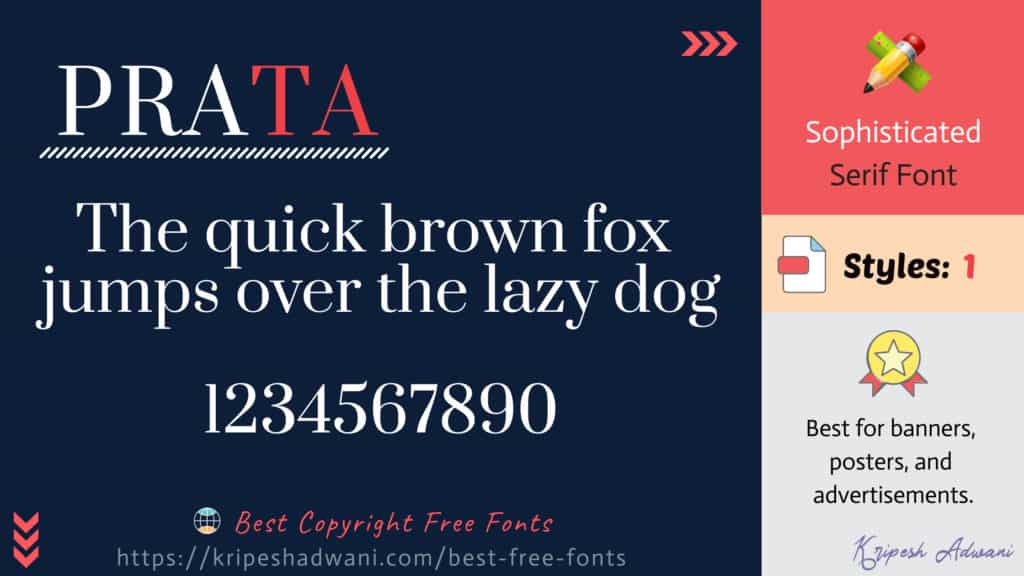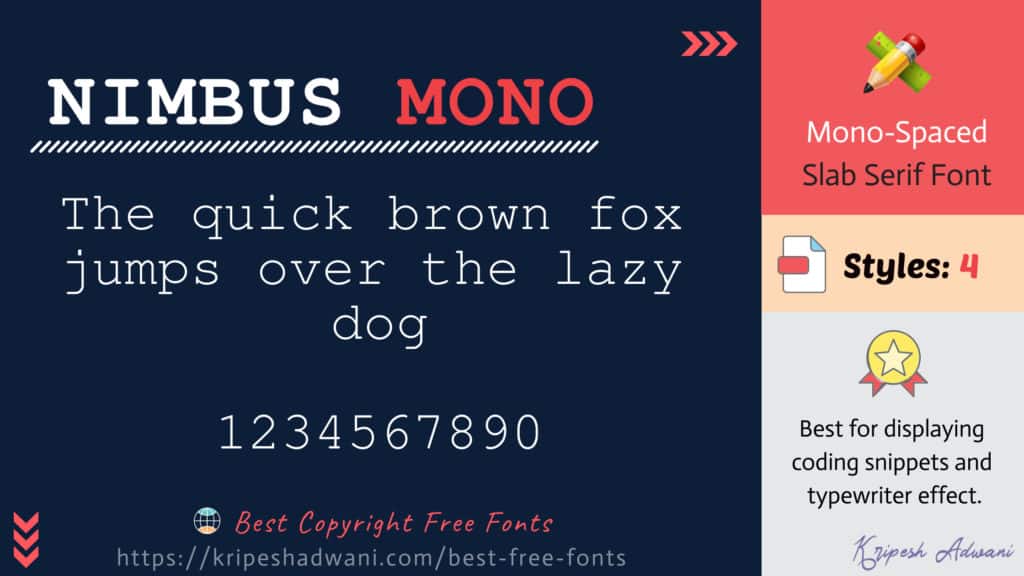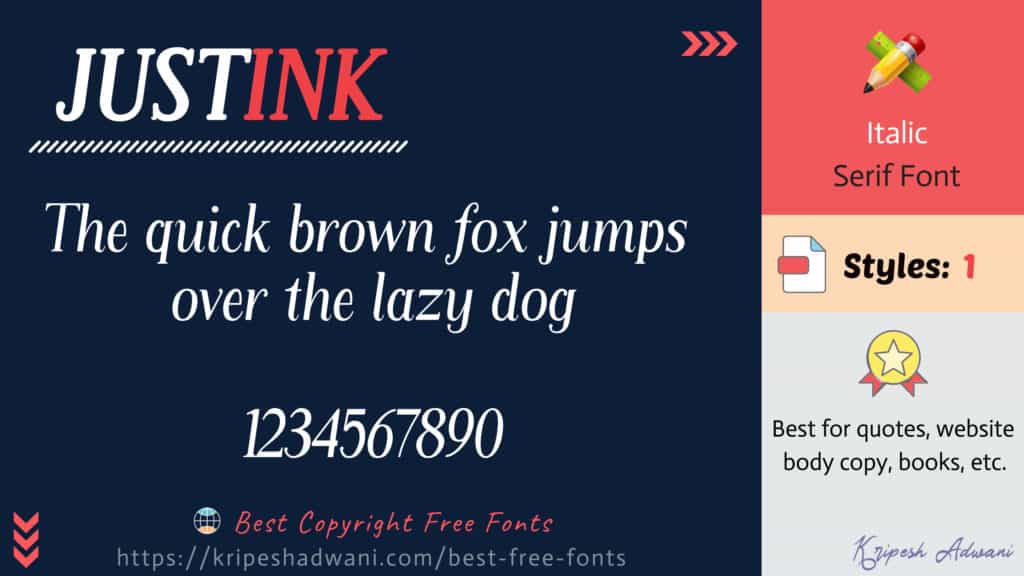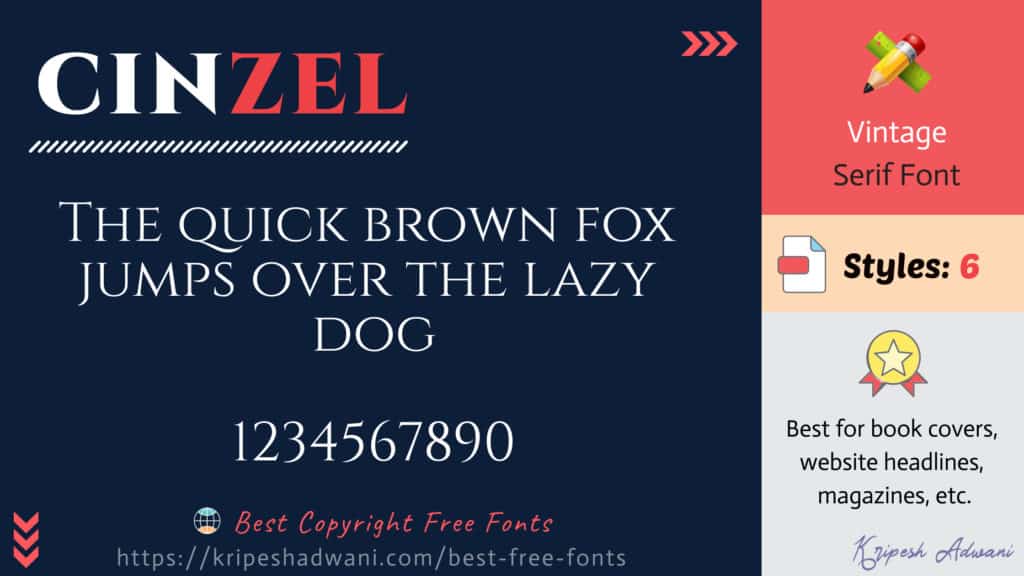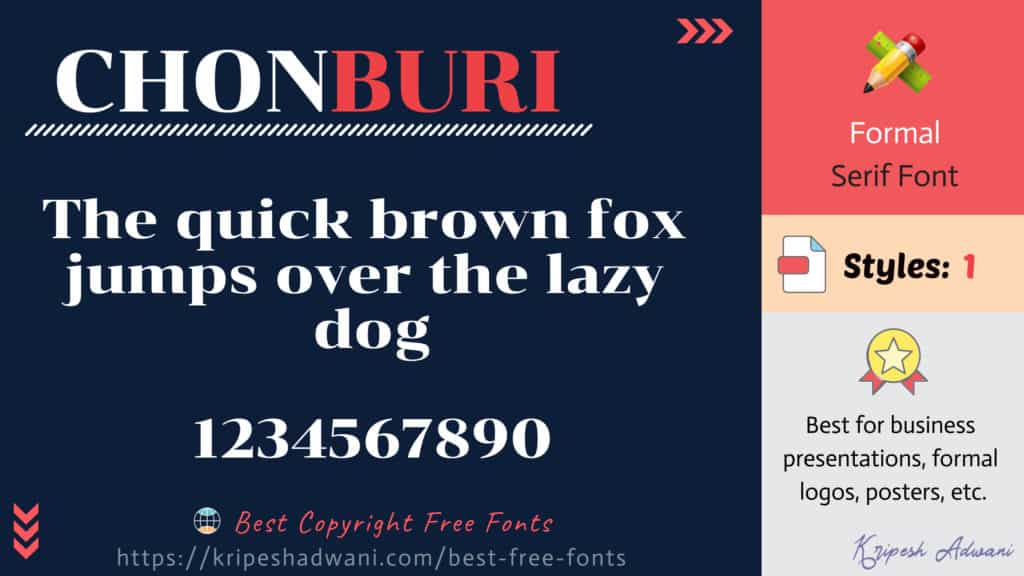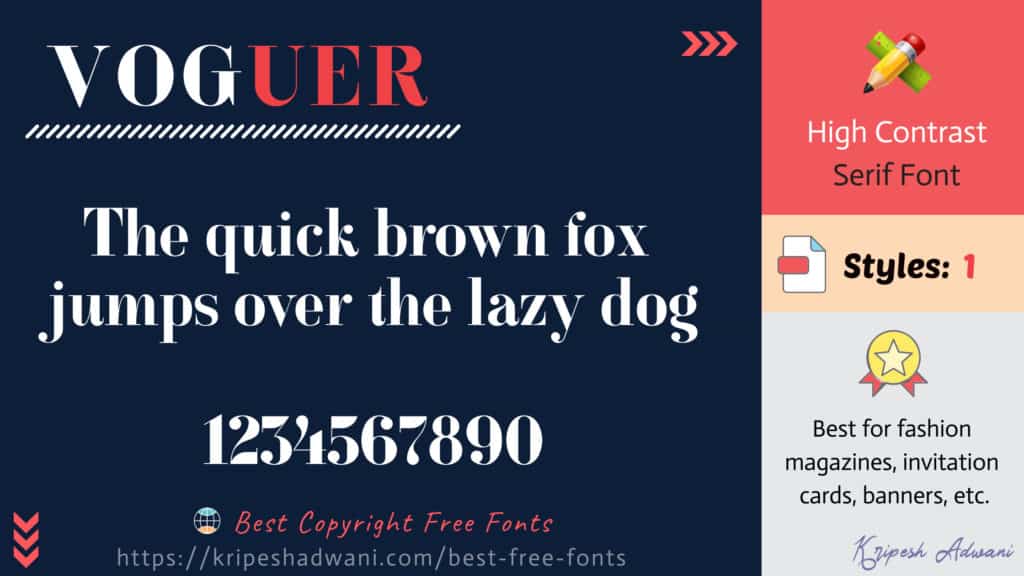
Designs are incomplete without fonts. Every font that you see has a different personality. Where one font might exude elegance and sophistication, another might appear to be confident, bold, or playful!
If you are working on a design project, it is essential to find a font that goes with the vibe of your project. You can find some great fonts online but they are not free for commercial usage and have copyright restrictions.
After researching thousands of online fonts, I’ve found some great Free Fonts which can be used commercially in 2026. In this article, I’m going to reveal 57 Best Free Fonts for Commercial Use. Yes, these fonts are FREE!!!
These fonts can be used on your brand logos, social media posts, school and college projects, blogs, websites, marketing materials, and even on client projects!
With this article, I will help you identify the difference between a font and a typeface and also highlight some important points you should consider before choosing a font.
Finally, we will check out the four significant font categories and the best free fonts under each. So, let’s dive right in!
Points to Consider Before Choosing a Font
Whether you are working on a client project or designing something for yourself, it is important to reflect on the following questions before choosing a font.
What is your project category?
The type of design project you are working on will decide the vibe you want the font to create.
- Is it a wedding or birthday invitation? Calligraphic fonts would be perfect for the occasion.
- For newspaper or magazine articles, Serif font works really well.
- If you need fonts for your app or website copy, Sans Serif would work like magic!
Who is your target audience?
Your target audience also plays a major role in finalizing your font.
For example, when designing the cover for a children’s book, you need fonts with a childish, playful, and carefree vibe.
Whereas for a sports brand commercial, you need fonts that give out a bold and confident vibe!
What is the theme?
The theme of your project will also be helpful in deciding the font you can use. For example, using spooky fonts on Valentine’s cards might be a terrible idea, right?
To identify the theme of your project, you need to get familiar with it and understand it on a deeper level.
Some examples of themes might be – Love, Luxury, Playful, Professional, Mysterious, Horror, etc.
Font vs Typeface
Typeface refers to a collection of similar types of fonts, whereas a font essentially refers to a single weight and style of text.
So, simply speaking, a collection of similar fonts is called a typeface. It can also be called Font Family. For example, Georgia is a typeface, whereas Georgia Bold, Georgia Italic, etc are fonts belonging to it.
Font Categories and Best Free Fonts for Commercial Use
Though fonts have lots of classifications, they can be broadly classified into four major types – Serif Fonts, Sans Serif Fonts, Script Fonts, and Display Fonts.
Now let us discuss each of them in depth.
Serif Fonts
Serifs are the oldest type of fonts that first occurred in the 15th century. These fonts had tiny feet-like decorative elements on the top and bottom called ‘Serifs’. Some examples of Serif fonts are Times New Roman, EB Garamond, Baskerville, etc.
Serif fonts are generally considered being sophisticated, formal, and professional. They are mainly used in printed media, including newspapers, magazines, etc.
Popular brands like Zara, Time, Vogue, Gucci, Faber Castell, Wikipedia, etc, use Serif fonts in their logos.
Free Serif Fonts for Commercial Use
1. Cobaissi
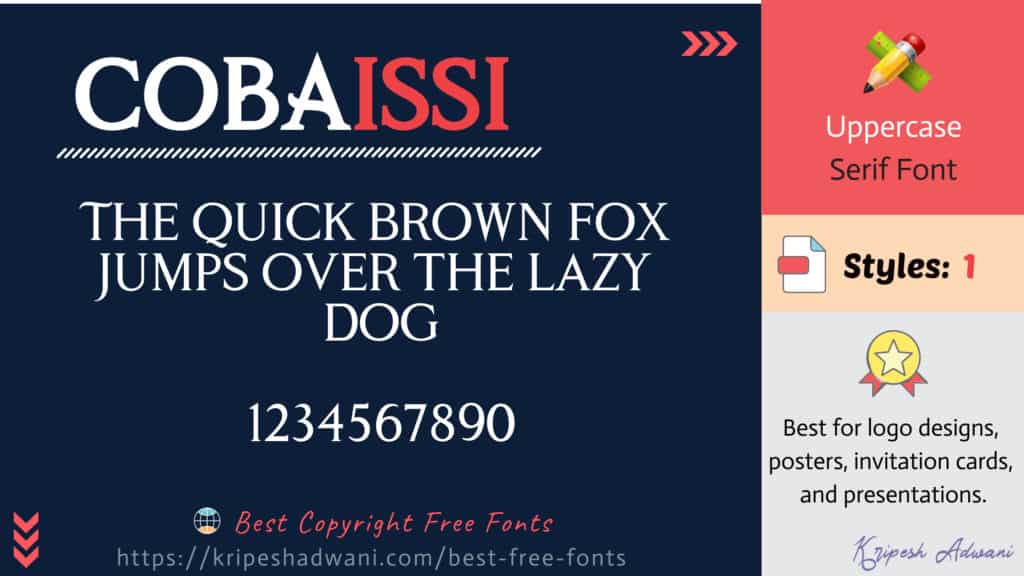
Cobaissi is a beautiful and elegant Serif font in uppercase letters designed by the Unblast team. This font portrays confidence and looks super classy with a modern touch!
You can use it in multiple design projects, for instance, logo design, posters, presentations, invitation cards, etc.
- Designer: Unblast
2. Life Savers
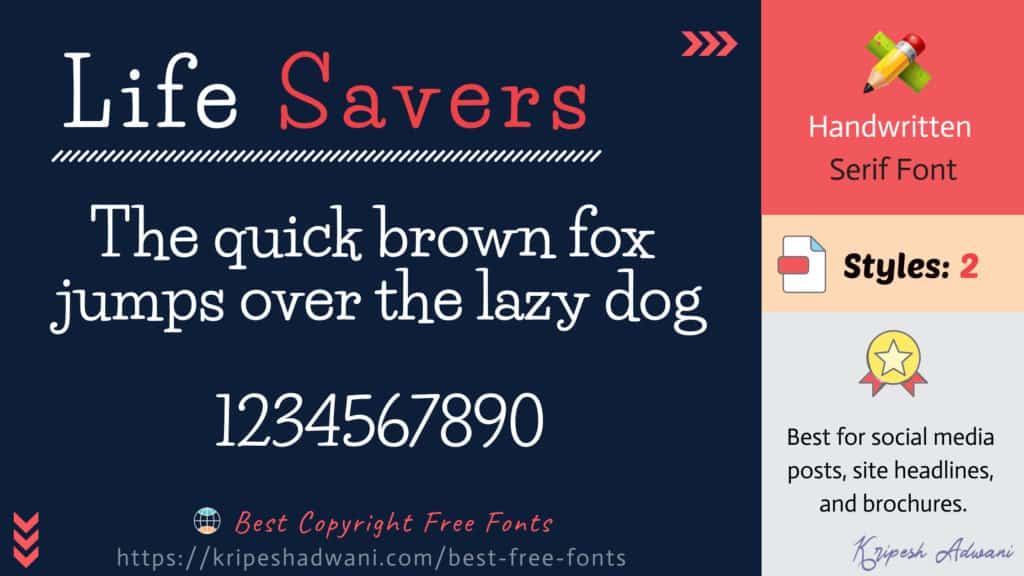
Need a fun and carefree font for your projects? Check out Life Savers, a handwritten Slab Serif font with a goofy and playful vibe. It is best for social media posts, website headlines, brochures, etc.
3. Elsie
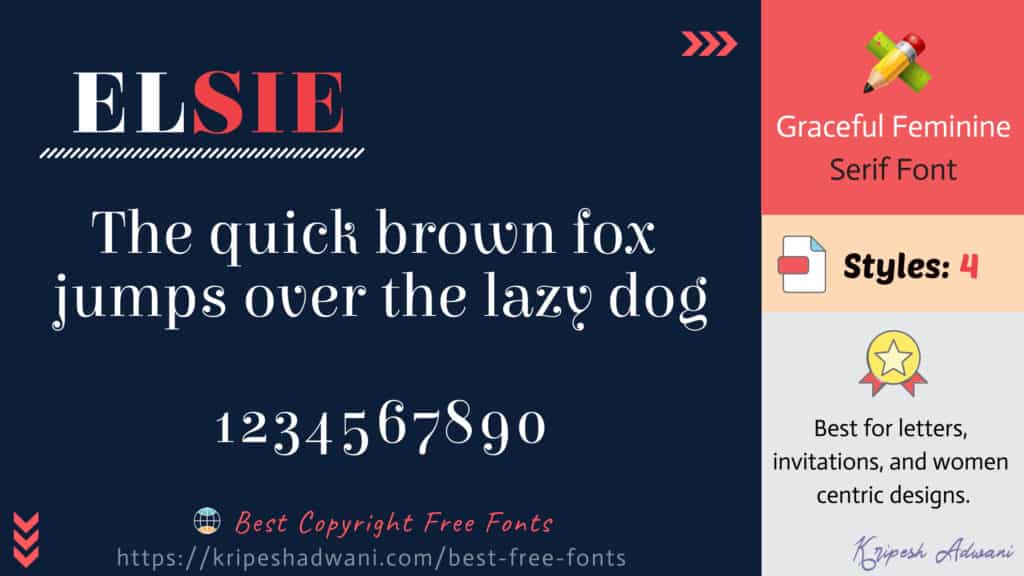
Elsie font was designed to celebrate the feminine energy. This font is a blend of softness and strength. This graceful typeface can be used in letters, invitations, and all kinds of creative projects involving women.